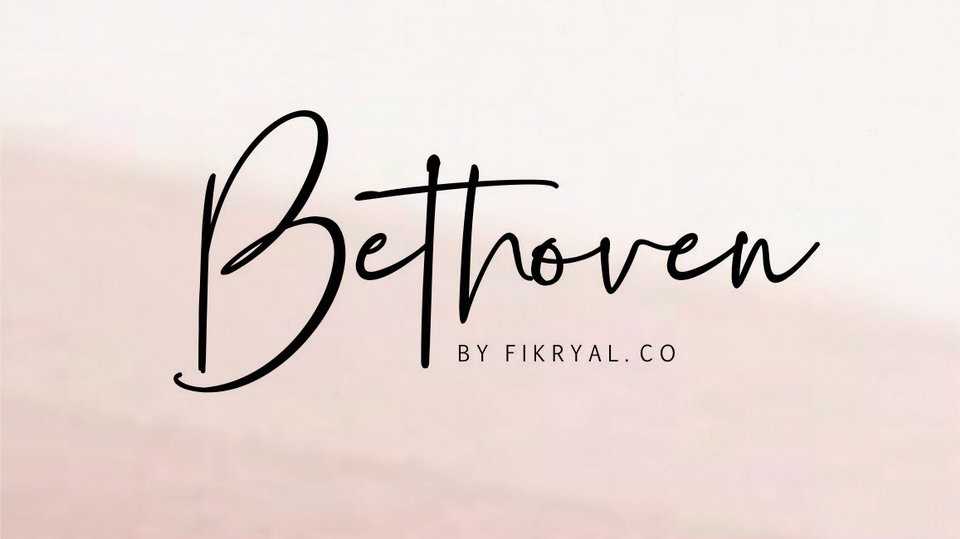
Download Bethoven font, a modern and stylish signature style script. Perfect for logo, branding, invitation, tittle, wedding designs, social media posts, label, photography, watermark, special event,magazine, web design, etc.
Designer: Fikry Alif